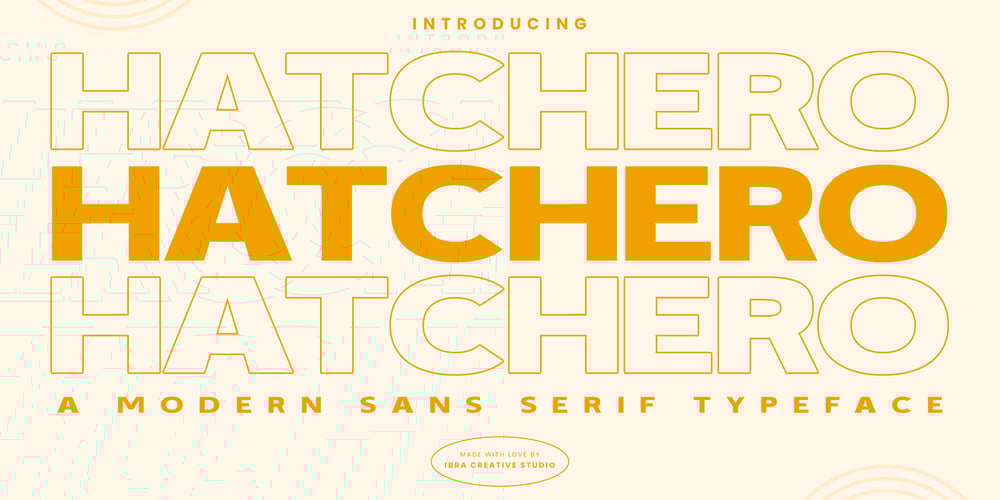
Hatchero Font Family was designed by Roisatul Azizah and published by IbraCreative. Hatchero contains 1 styles and family package options. Hatchero – A Modern Sans Serif TypefaceHatchero, a contemporary sans-serif typeface, epitomizes modernity and versatility in the realm of typography. Its clean lines and balanced proportions create a sleek and minimalist aesthetic, making it an ideal choice for a wide array of design applications. Whether used for digital interfaces, editorial layouts, or corporate branding, Hatchero exudes a timeless sophistication that effortlessly blends with diverse visual contexts. The typeface’s simplicity is its strength, offering clarity and readability while maintaining a sense of contemporary elegance. With Hatchero, each letter embodies a harmonious fusion of form and function, allowing designers to convey a sense of modern professionalism in their creative endeavors.Hatchero is perfect for branding projects, logo, wedding designs, social media posts, advertisements, product packaging, product designs, label, photography, watermark, invitation, stationery, game, fashion and any projects.Fonts include multilingual support for; Afrikaans, Albanian, Czech, Danish, Dutch, English, Estonian, Finnish, French, German, Hungarian, Italian, Latvian, Lithuanian, Norwegian, Polish, Portuguese, Slovak, Slovenian, Spanish, Swedish.